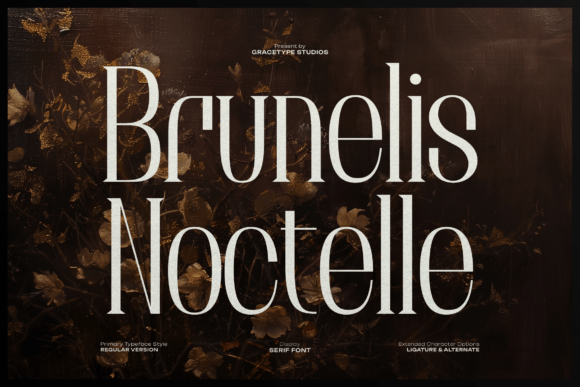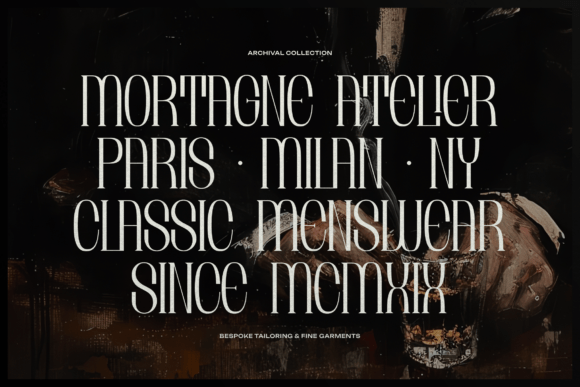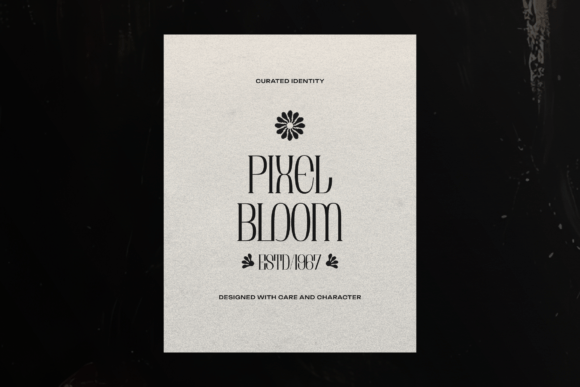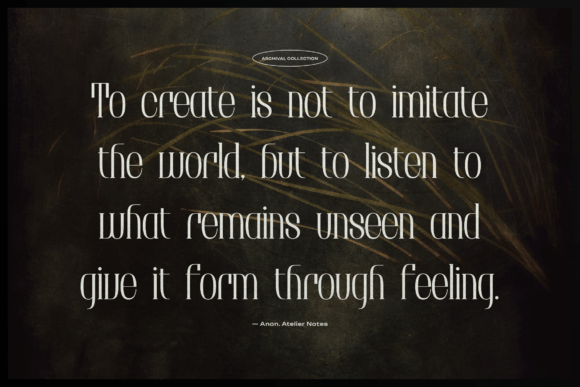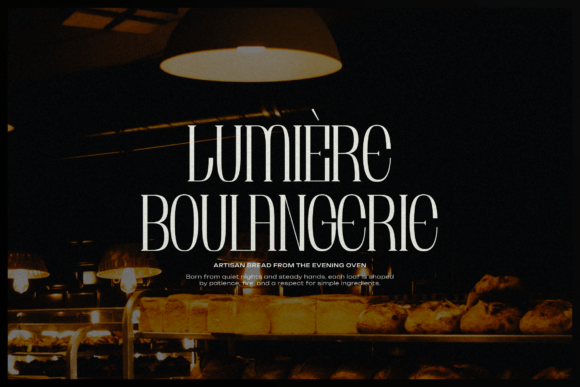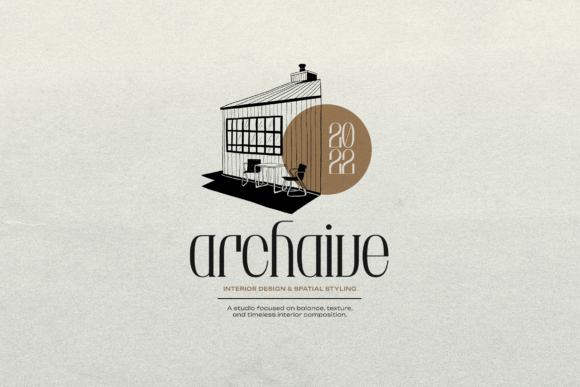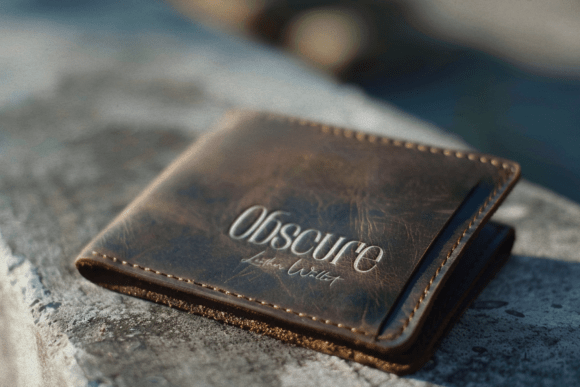
The Perfect Font for High-End Design
Have you ever been working on a project, and the words just flow effortlessly onto the page, but something is missing? A spark of creativity hits, and you realize the entire design hinges on finding the right font. This is exactly what happened to me when I stumbled upon the Brunelis Noctelle Font. Its unique blend of classical elegance and modern minimalism immediately caught my attention, and I knew I had to dive deeper.
Brunelis Noctelle Font is a sophisticated display serif font, designed to make a statement. With its exceptional x-height and high-contrast strokes, it’s perfect for high-end editorial layouts, luxury fashion branding, and boutique logos. As a designer, I can attest that this font is invaluable for elevating your work and giving it a timeless, high-fashion aesthetic.
Brunelis Noctelle Font Key Features
- Font Family: Brunelis Noctelle
- Unique Characteristics:
- Distressed, vintage aesthetic
- Hand-drawn, organic feel
- Perfect for creative, artistic, and romantic designs
- Language Support: Multi-language support, including Latin-based languages and Cyrillic
Designer Review: Brunelis Noctelle Font
Overall, I’m quite impressed with the Brunelis Noctelle Font. It’s a beautiful, elegant serif font that’s perfect for formal and luxury branding. ✨ The font has a classic feel to it, reminiscent of traditional book typography, but with a modern twist that sets it apart from more traditional serif fonts.
The font’s unique characteristic is its subtle flair at the terminals, which adds a touch of sophistication and whimsy. ✨ The font is also highly legible, even at small sizes, making it perfect for use in a variety of contexts, from business cards to signage.
- Beautiful, elegant design that’s perfect for formal branding
- Classic feel with a modern twist
- Subtle flair at the terminals adds sophistication and whimsy
- Highly legible, even at small sizes
- May not be suitable for casual or playful branding
- Lack of bold weights may limit use in certain contexts
- Font may not be as versatile as more modern sans-serif fonts
- ⚠️ May require additional styling to ensure optimal legibility at small sizes
The Brunelis Noctelle Font is a solid choice for designers looking for a sophisticated, elegant serif font. While it may have some limitations, its unique characteristics and high legibility make it a great option for formal branding and luxury projects.
Brunelis Noctelle Font Practical Application Guide
The Brunelis Noctelle Font is ideal for creative and artistic designs. Use it to create eye-catching headings, titles, or body text for your designs. It’s also great for creating quotes, posters, or flyers.
Alternatives to Brunelis Noctelle Font for Designers
Aurora Script
Aurora Script is a beautiful, elegant script font ideal for use in invitations, wedding stationery, and other formal events. It features flowing connections between letters, giving it a romantic and whimsical feel. When to use: formal events, wedding invitations, and stationery.
Compared to Brunelis Noctelle Font, Aurora Script has a more classic and traditional feel, whereas Brunelis Noctelle Font is more modern and sophisticated.
Great Vibes is a modern script font with a casual and relaxed feel. It’s perfect for use in branding, logos, and marketing materials. When to use: branding, logos, marketing materials, and social media.
Compared to Brunelis Noctelle Font, Great Vibes is more informal and laid-back, whereas Brunelis Noctelle Font is more formal and sophisticated.
Lato Script
Lato Script is a modern script font with a clean and minimalist design. It’s ideal for use in digital products, apps, and websites. When to use: digital products, apps, websites, and e-commerce.
What is the recommended font size and line height for the Brunelis Noctelle Font?
For optimal readability, we recommend using the Brunelis Noctelle Font at a minimum size of 12 points and a line height of 1.5 times the font size. This will ensure that the text is clear and legible in most digital and print applications.